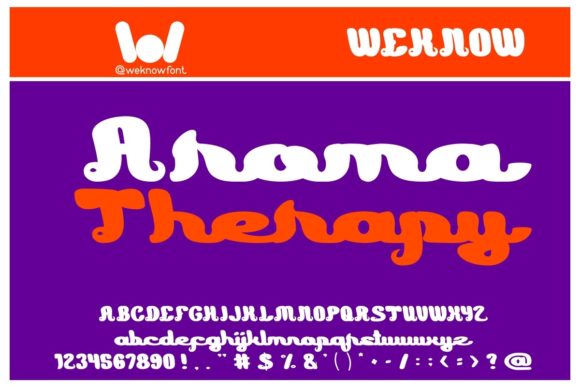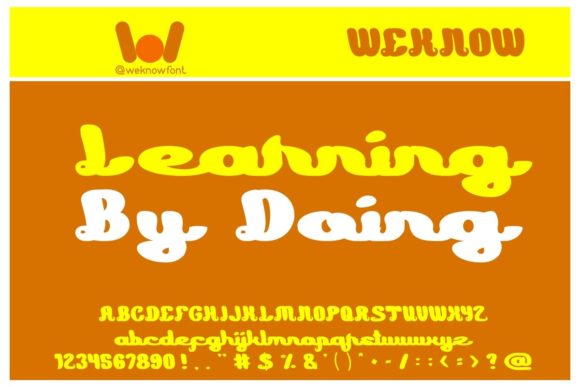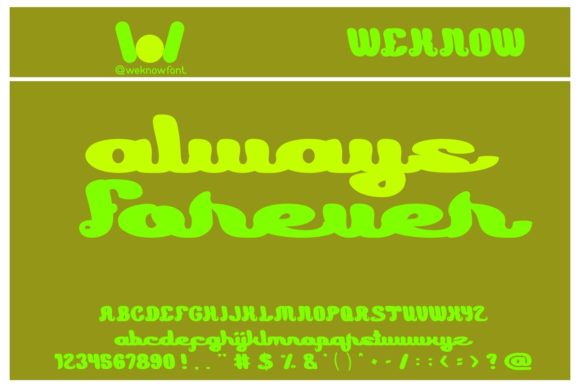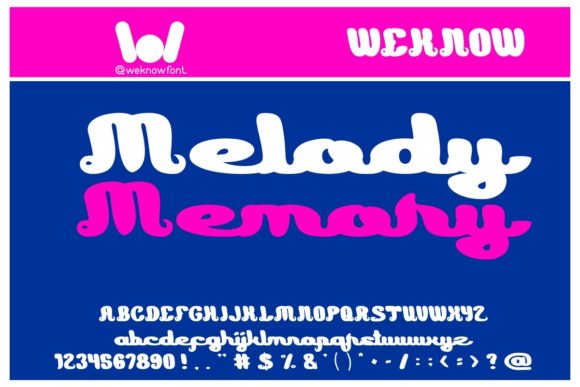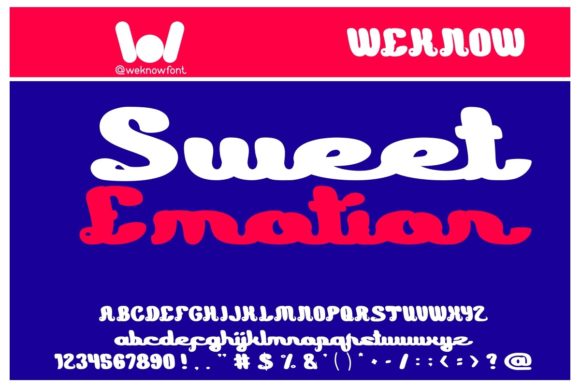
Learning Font
About Learning Font
Learning is an amazing handwritten font, suit for logos, logotypes, headlines, corporate identity, brand identity, or any of your creative projects!